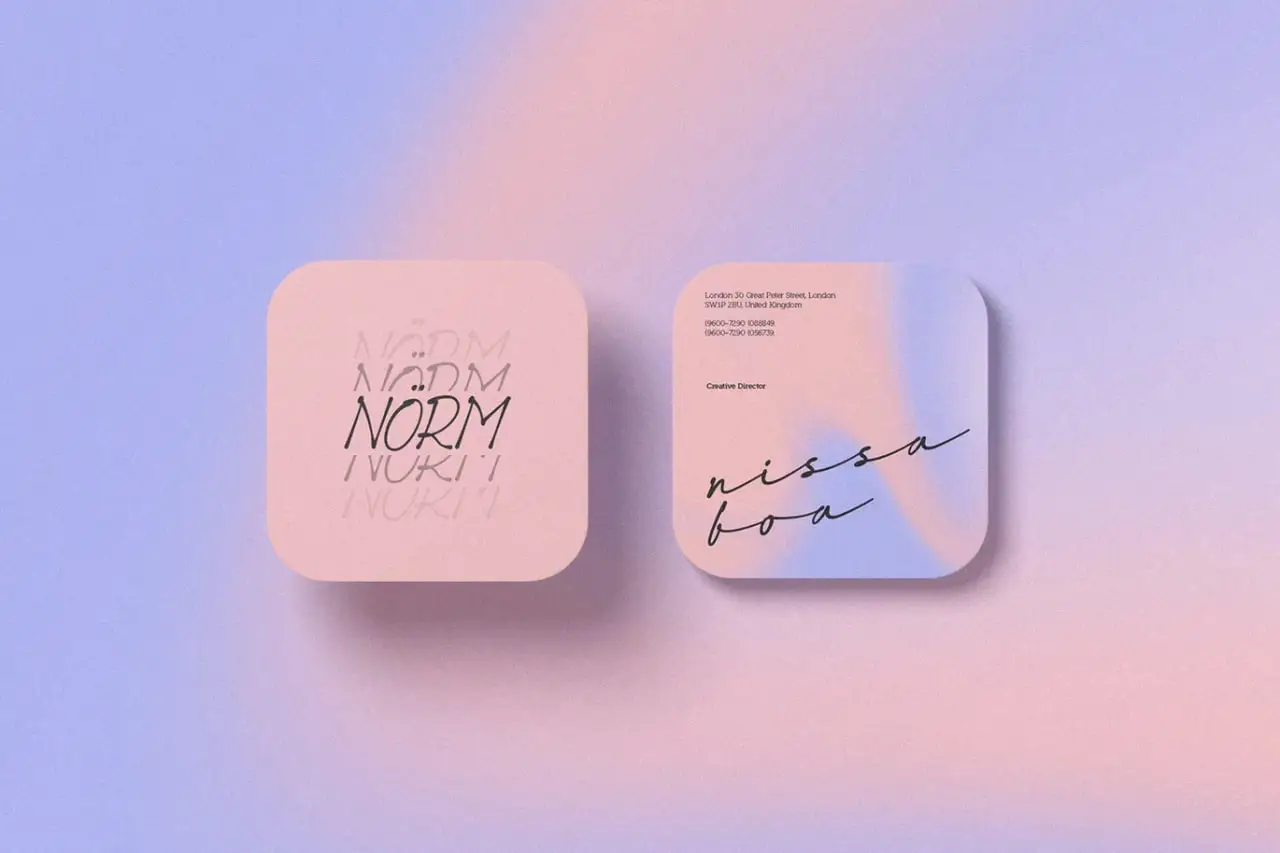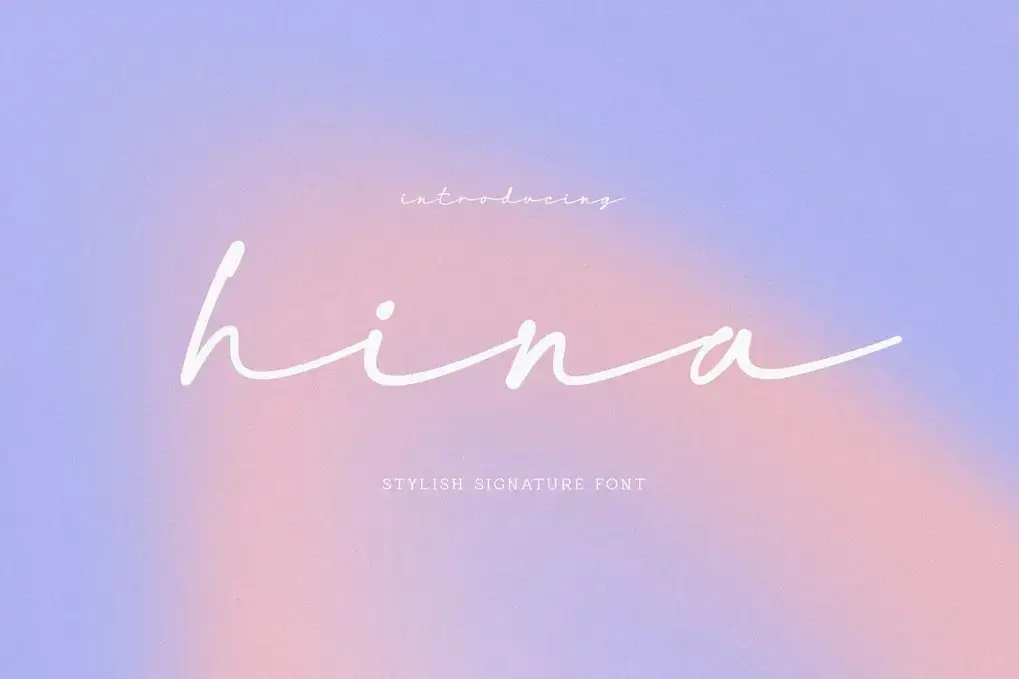
Hina Font
The Hina Font is a beautifully crafted typeface designed to add a touch of elegance to your projects. With its unique character shapes and stylish curves, this font is perfect for a variety of applications, including branding, logos, web design, and print materials.
• Available in multiple weights for versatility
• Stylish and modern design suitable for various themes
• Includes uppercase and lowercase letters, numerals, and special characters
• Ideal for creating eye-catching headlines and logos
• Pair with complementary fonts for a balanced design